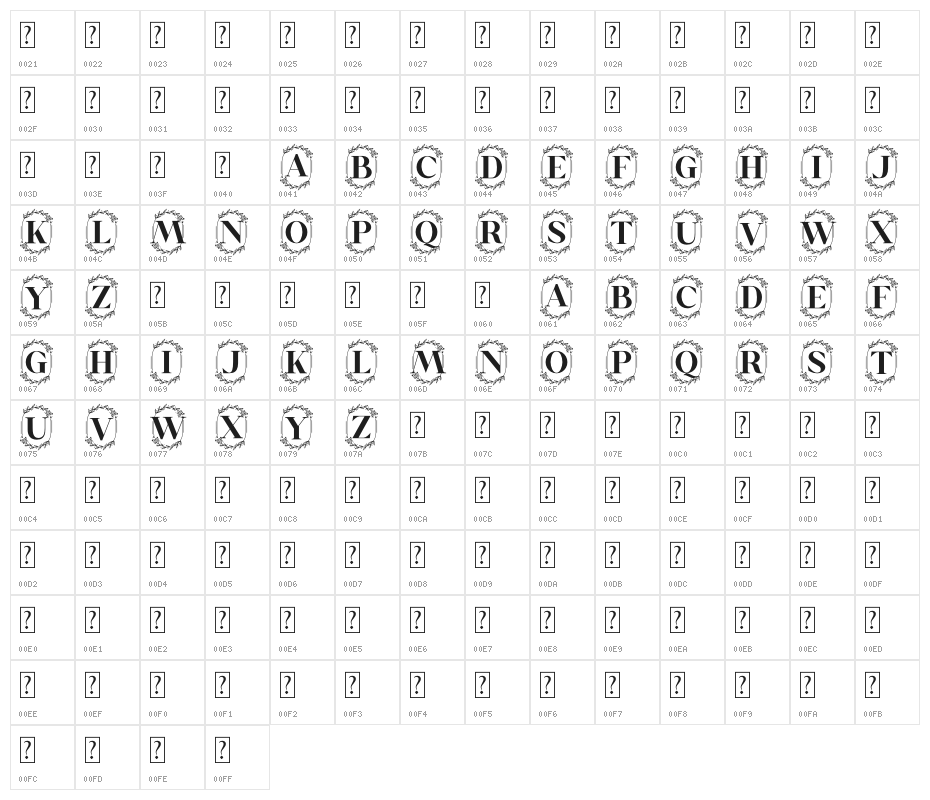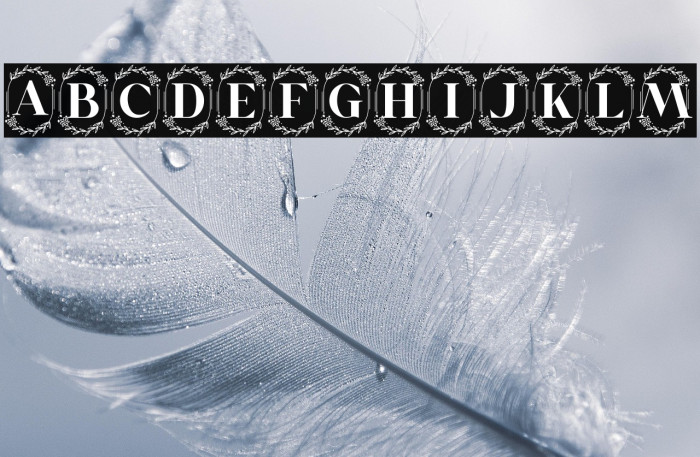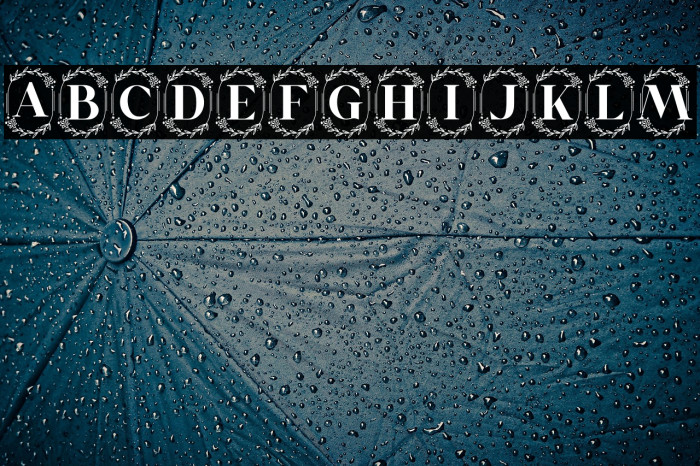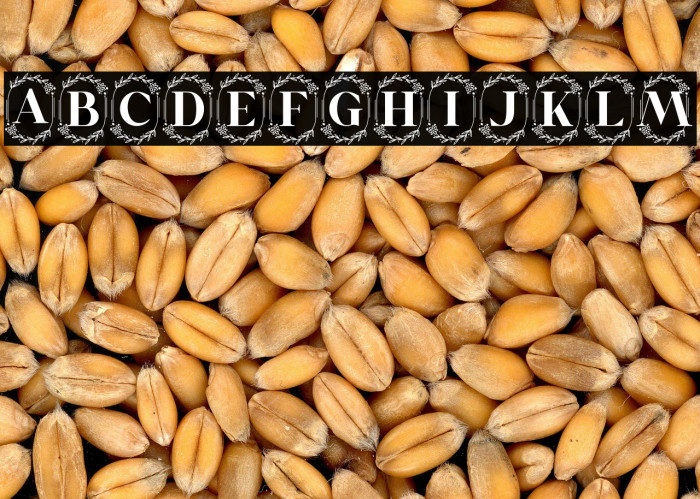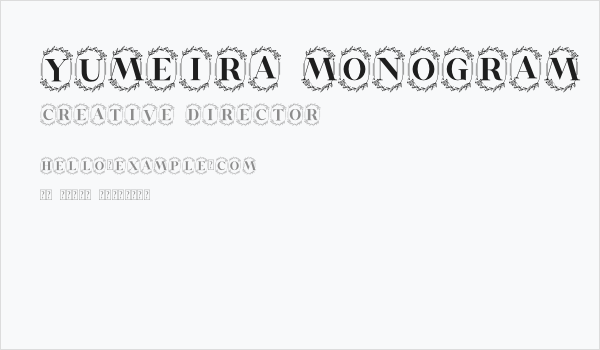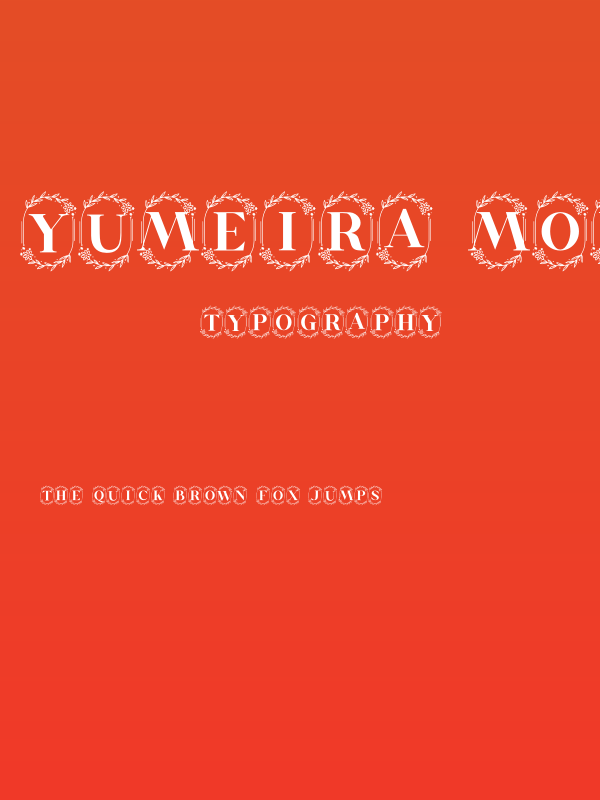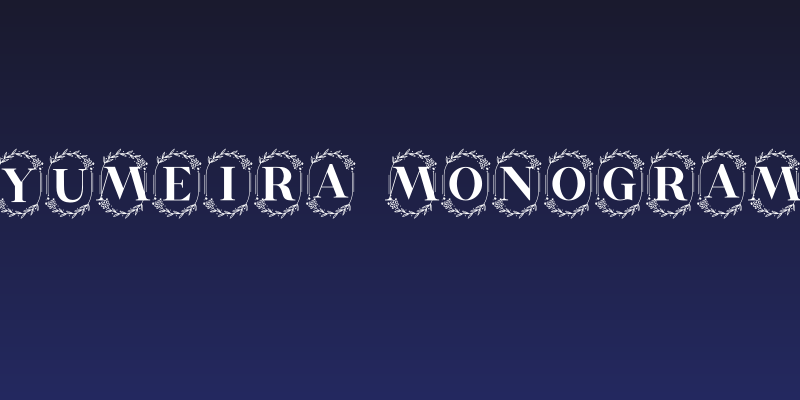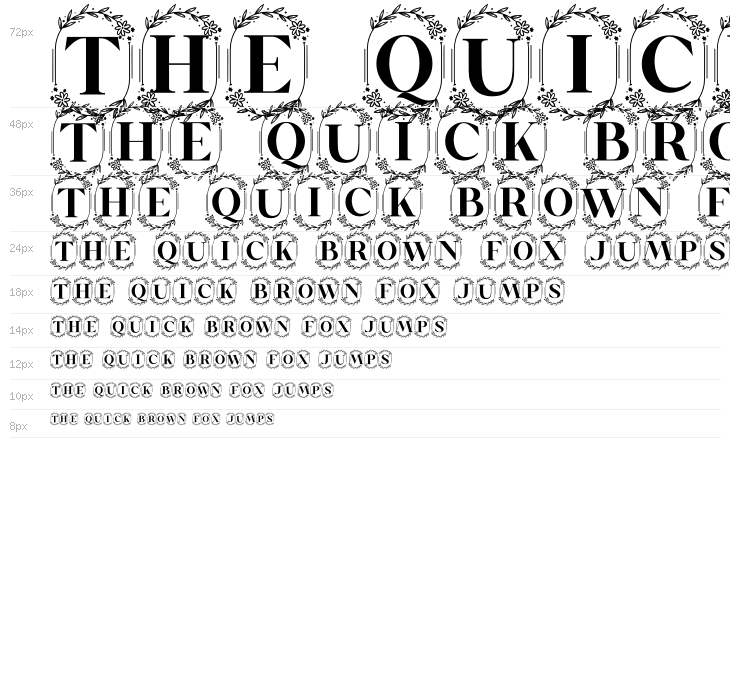
Yumeira Monogram Font
Yumeira Monogram Description
This font features a decorative style with each letter encased in an ornate wreath-like border, giving it a monogram appearance. The uppercase letters are bold and elegant, with a classic serif design that adds a touch of sophistication. The intricate border enhances the overall aesthetic, making it suitable for formal and luxurious designs. The font does not include lowercase letters or numbers, focusing solely on uppercase characters for a striking visual impact.
| Overall Style | Classic, Decorative |
| Proposed Projects | Ideal for wedding invitations, luxury branding, personalized stationery, and monogram designs. |